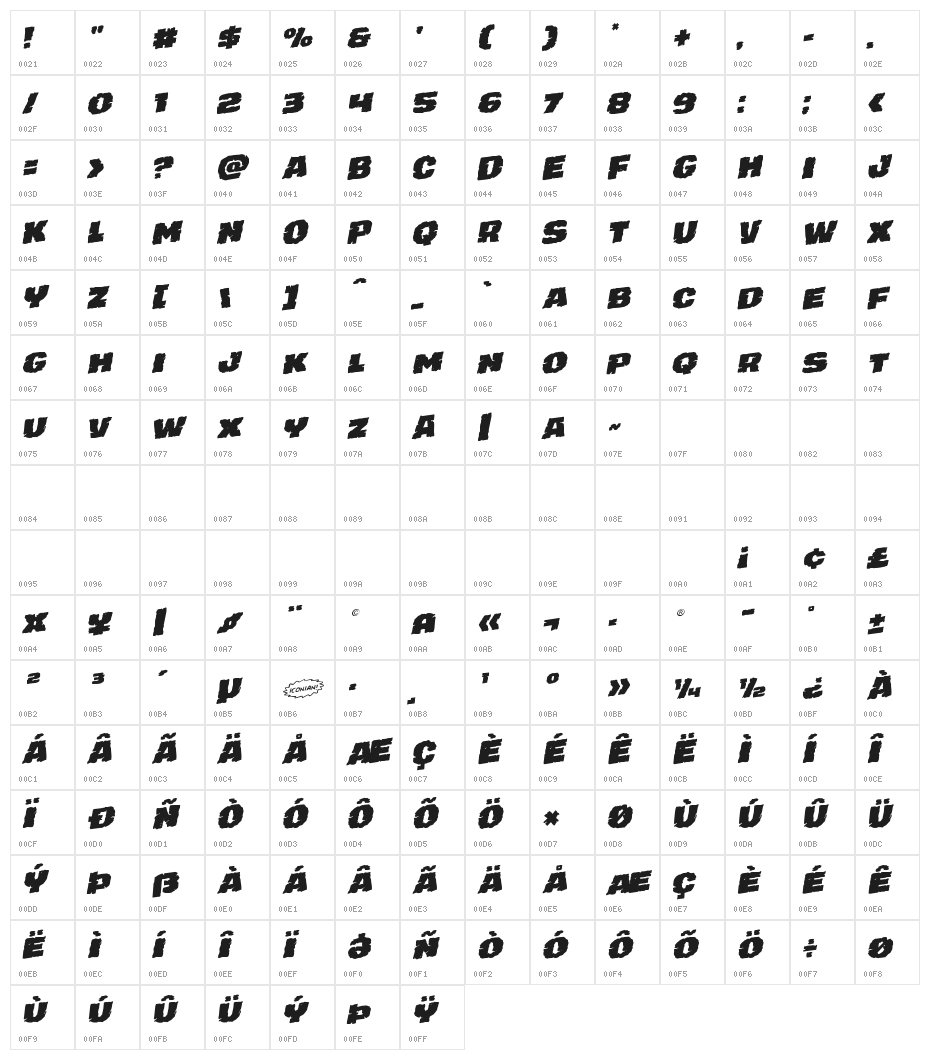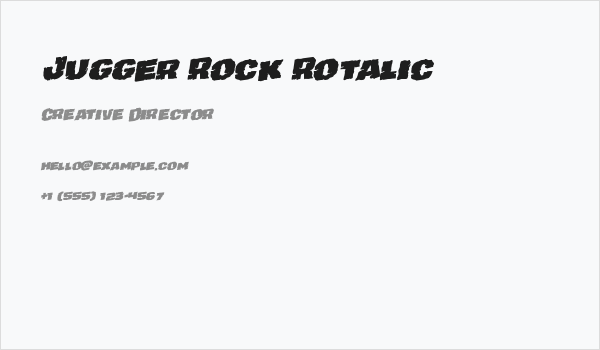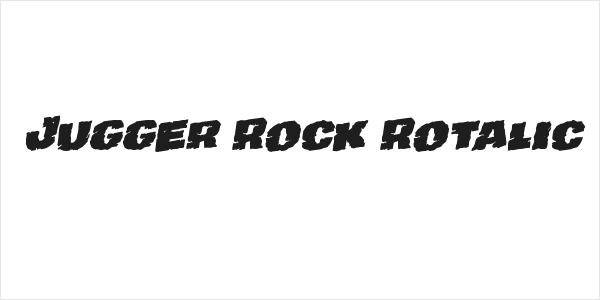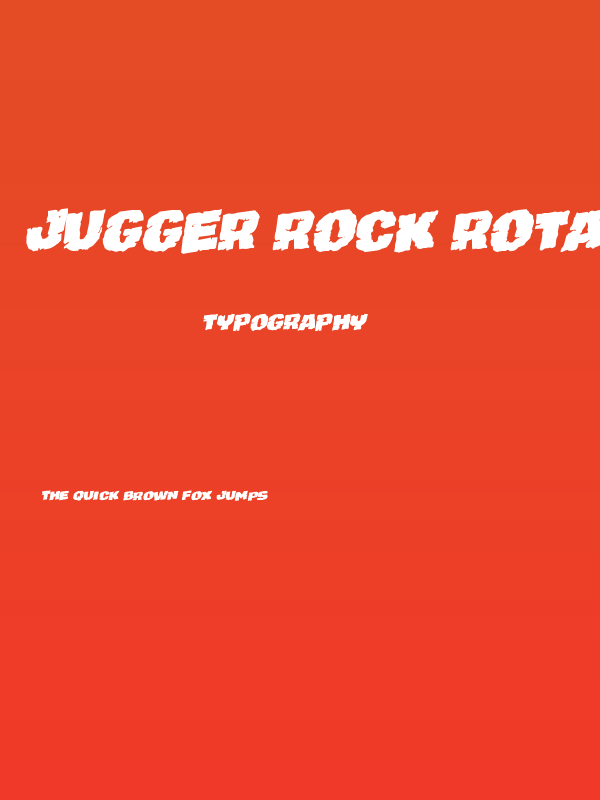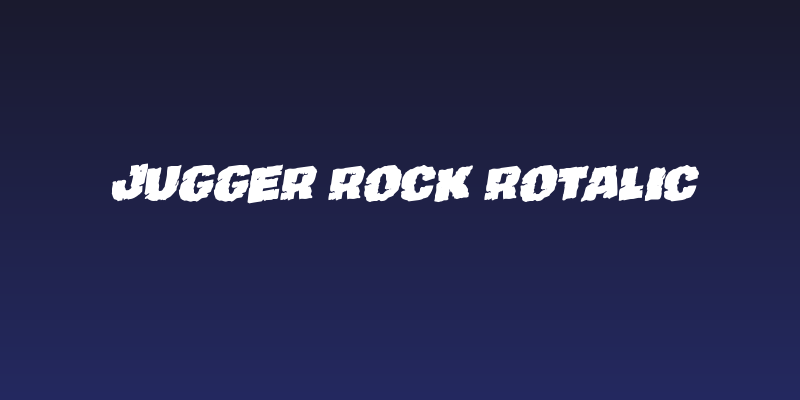
Jugger Rock Rotalic Font
Jugger Rock Rotalic Description
This font features a bold and rugged style with a dynamic, italicized slant. The characters are heavily textured, giving them a rock-like appearance that suggests strength and impact. Each letter and number is designed with a rough, jagged edge, enhancing the font's aggressive and energetic feel. The uppercase and lowercase letters maintain a consistent weight, while the numbers and special characters follow the same bold and textured design. This font's unique style makes it stand out, perfect for projects that require a strong visual presence.
| Proposed Projects | Ideal for music album covers, sports team logos, action movie posters, and extreme sports branding. |